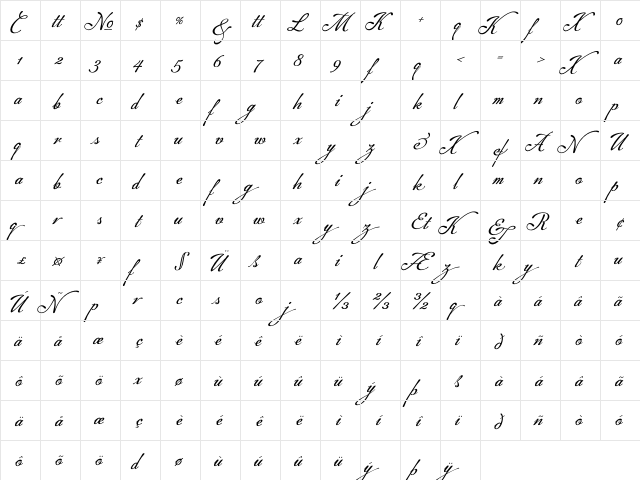
Machia Xtra One Regular
Regular · Ryoichi Tsunekawa, Flat it type foundry Ryoichi Tusnekawa ·
Design Context for Machia Xtra One Typeface
Machia Xtra One takes a measured approach to typography — its balanced proportions and neutral character make it a reliable workhorse for both digital and print work.